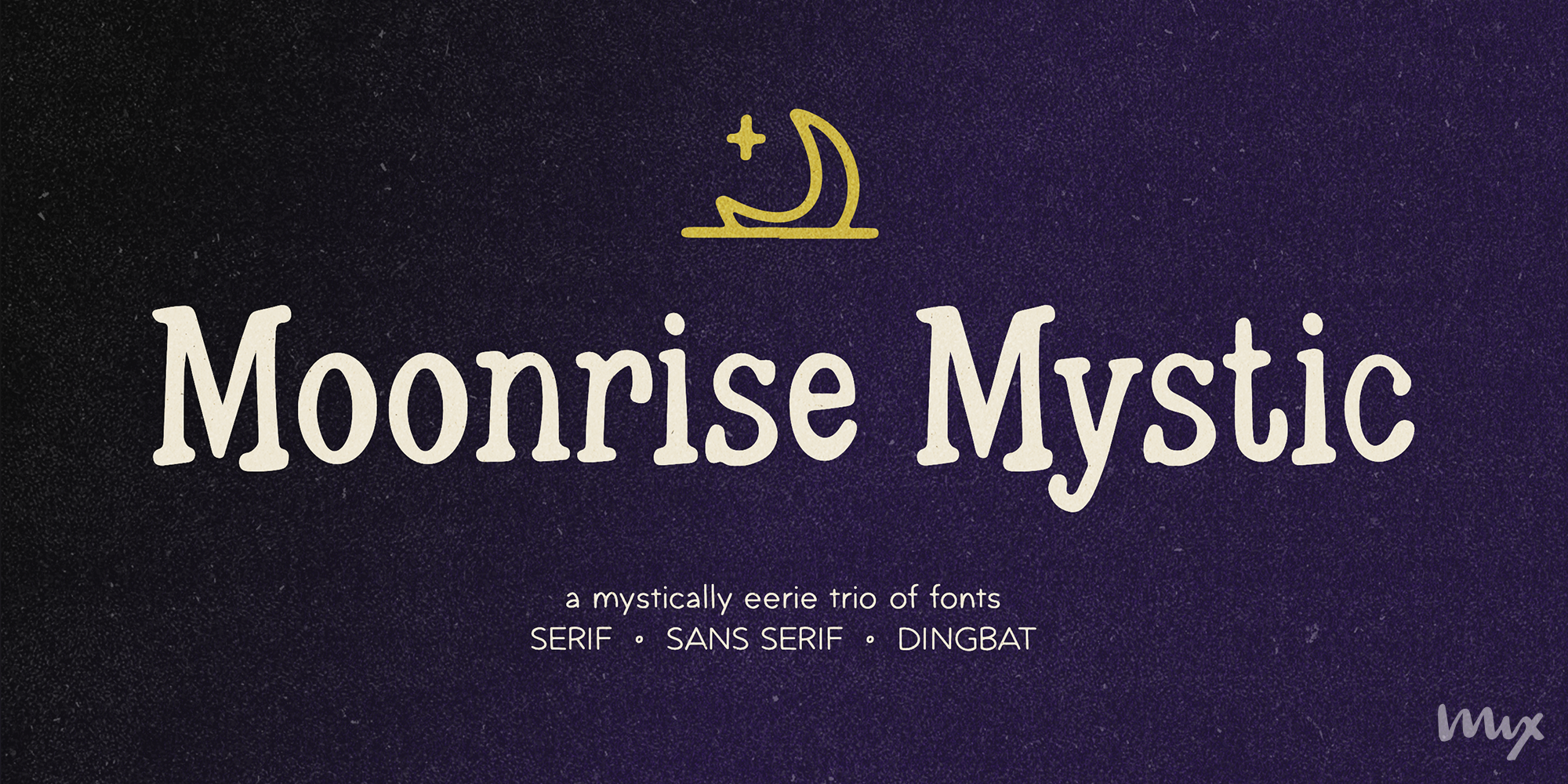
Mix Moonrise Mystic Font is ideal for fantasy novel covers, mystical tarot card designs, astrology website branding, spiritual wellness centers, moon phase calendars, witchcraft shop signage, celestial art exhibitions, magical potion labels, ethereal music album covers, and enchanting projects that celebrate lunar mysteries and supernatural aesthetics with otherworldly charm.
What makes Mix Moonrise Mystic Font so exciting is its captivating fusion of celestial elegance with mystical symbolism that perfectly captures the enchanting power of moonlit nights and ancient wisdom. This typeface embodies lunar magic and spiritual mystery, featuring ethereal letterforms with subtle celestial flourishes that suggest moonbeams and starlight while maintaining excellent readability for contemporary mystical applications and spiritual branding.
Mix Moonrise Mystic Font family encompasses multiple magical variations: Regular, Bold, Light, Glow, Shadow, Celestial, Ethereal, and Enchanted versions. Each style maintains the font's inherent mystical character while offering different levels of supernatural intensity and lunar atmosphere, enabling designers to create authentic spiritual aesthetics that resonate with audiences seeking connection to cosmic energies and ancient wisdom.
The mystical appeal of Mix Moonrise Mystic Font Free Download makes it exceptionally powerful for spiritual and metaphysical market segments. This font successfully communicates otherworldly wisdom and cosmic connection, making it perfect for brands that want to attract audiences interested in astrology, spirituality, and mystical practices. Its enchanting character works beautifully across both digital platforms and specialty print materials, while its distinctive lunar-inspired design creates immediate recognition among communities that appreciate celestial beauty and spiritual exploration.